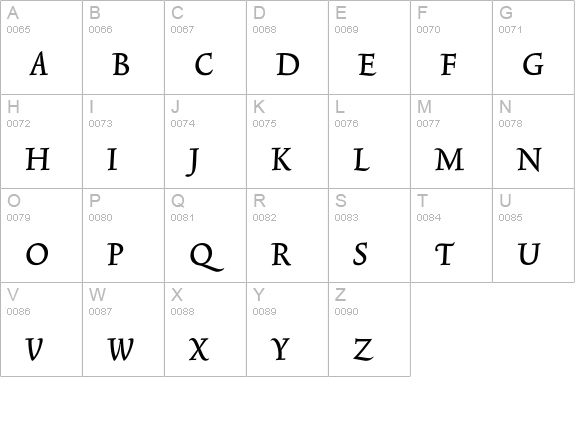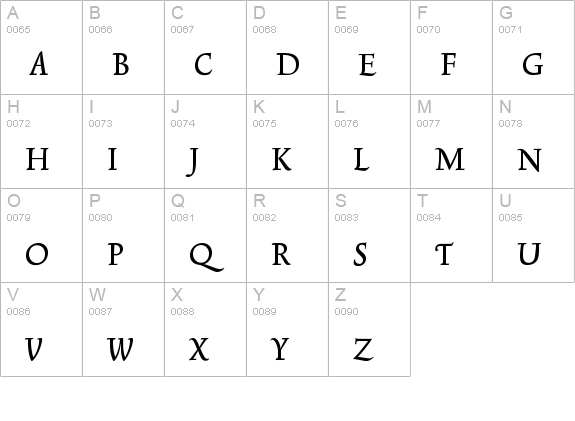
Introducing TriniteNo1-MediumItalicTab, a versatile and stylish font that will bring elegance and sophistication to any design project. This font strikes the perfect balance between professionalism and creativity, making it suitable for a wide range of applications. TriniteNo1-MediumItalicTab features a unique combination of medium weight and italic styling, giving your text a modern and sleek appearance. Its clean and crisp lines ensure excellent legibility, making it perfect for both display and body text. This font is meticulously crafted to add a touch of class to your designs, whether you're creating logos, branding materials, invitations, or any other creative project. Its versatility allows it to seamlessly blend into various design styles, making it a go-to choice for designers and creatives alike. What sets TriniteNo1-MediumItalicTab apart is its availability as a free download at FontsMarket.com. Yes, you read that right – this incredible font can be yours at absolutely no cost. FontsMarket.com is a trusted source for high-quality fonts, and they are delighted to offer this font to their users for free. So why wait? Don't miss out on the opportunity to elevate your designs with TriniteNo1-MediumItalicTab. Download it today from FontsMarket.com and let your creativity soar. Whether you're a professional designer or a hobbyist, this font is sure to become an invaluable asset in your toolkit.